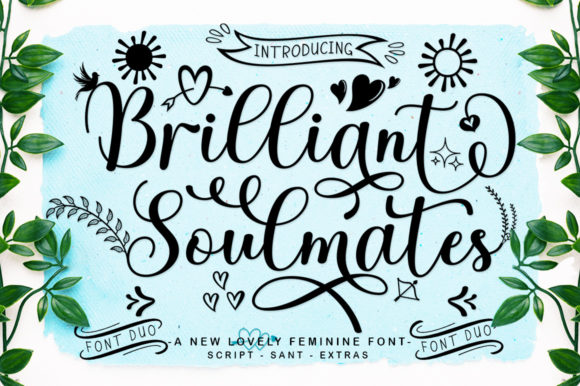
The Quest for the Perfect Font: Discovering Brilliant Soulmates
I’ll never forget the time I was working on a wedding invitation design project, and my client asked for a font that exuded romance and luxury. I scoured the internet, tried out countless fonts, but nothing seemed quite right. That was until I stumbled upon Brilliant Soulmates, a beautiful script font that made my design dreams come true! 💕
An Honest Review of Brilliant Soulmates
So, what makes Brilliant Soulmates so special? Let’s dive into the good stuff! 😊
- ✨ Romantic and dainty script: Brilliant Soulmates has a whimsical, handwritten feel that’s perfect for designs that require a touch of elegance.
- ✅ PUA encoded: This font is PUA (Private Use Area) encoded, which means you can access all the amazing glyphs and ligatures with ease!
- 💫 Luxury spark: This font adds a touch of sophistication and glamour to any design project, making it perfect for high-end branding, weddings, and more.
Now, I’m not going to sugarcoat it – there are a few tiny quirks to be aware of:
- 🤔 Limited use in certain contexts: While Brilliant Soulmates is perfect for romantic designs, it might not be the best fit for more formal or corporate projects.
- ⚠️ Requires OpenType features: To get the most out of this font, you’ll need to use it with software that supports OpenType features, such as Adobe Creative Cloud.
The Story Behind Brilliant Soulmates
While I couldn’t find any information on the designer’s background, it’s clear that Brilliant Soulmates was created with love and care. The font’s elegant, cursive feel is reminiscent of traditional calligraphy, but with a modern twist. Whether you’re a designer, crafter, or creative hobbyist, Brilliant Soulmates is sure to inspire your next project! 💫
| What is Brilliant Soulmates? | Brilliant Soulmates is a romantic and dainty script font with characters that dance along the baseline. |
| Is Brilliant Soulmates PUA encoded? | Yes, Brilliant Soulmates is PUA encoded, making it easy to access all the amazing glyphs and ligatures. |